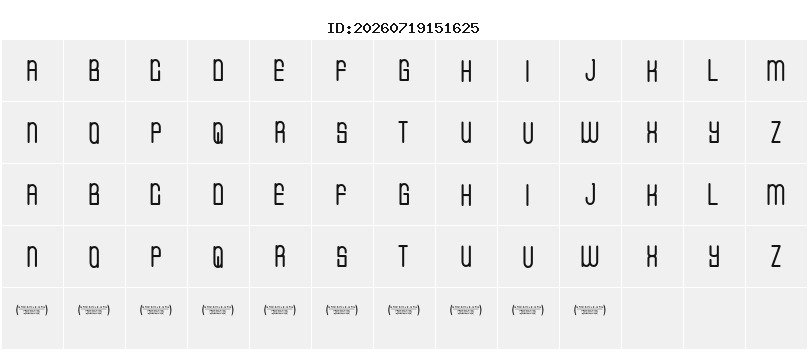
• Font Name: CVF Buffalo Grove
• Designer: Chris Vile
• Manufacturer: Font Monger
• Description: CVF Buffalo Grove is a font by Font Monger, designed by Chris Vile in 2014.
CVF Buffalo Grove.otf is a modern, elegant sans-serif font designed for ultimate readability and visual harmony. Perfect for branding, headlines, web design, and print materials.